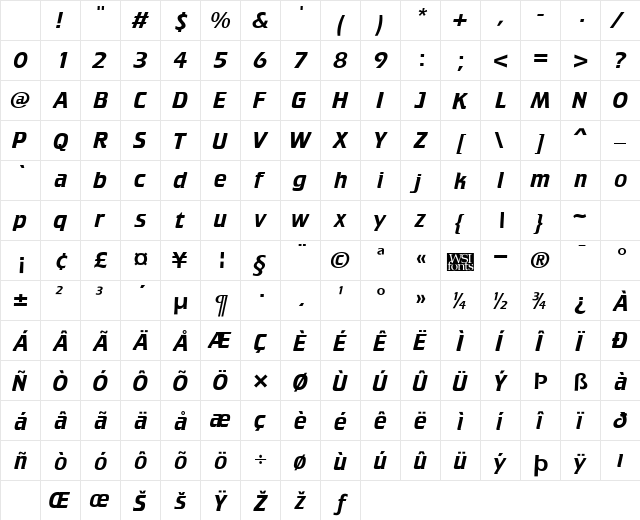
Complete Trekker Regular glyph index. Displaying only characters natively supported by Trekker Regular font.
Trekker is a composed and adaptable typeface that performs quietly and consistently across a wide range of design contexts.